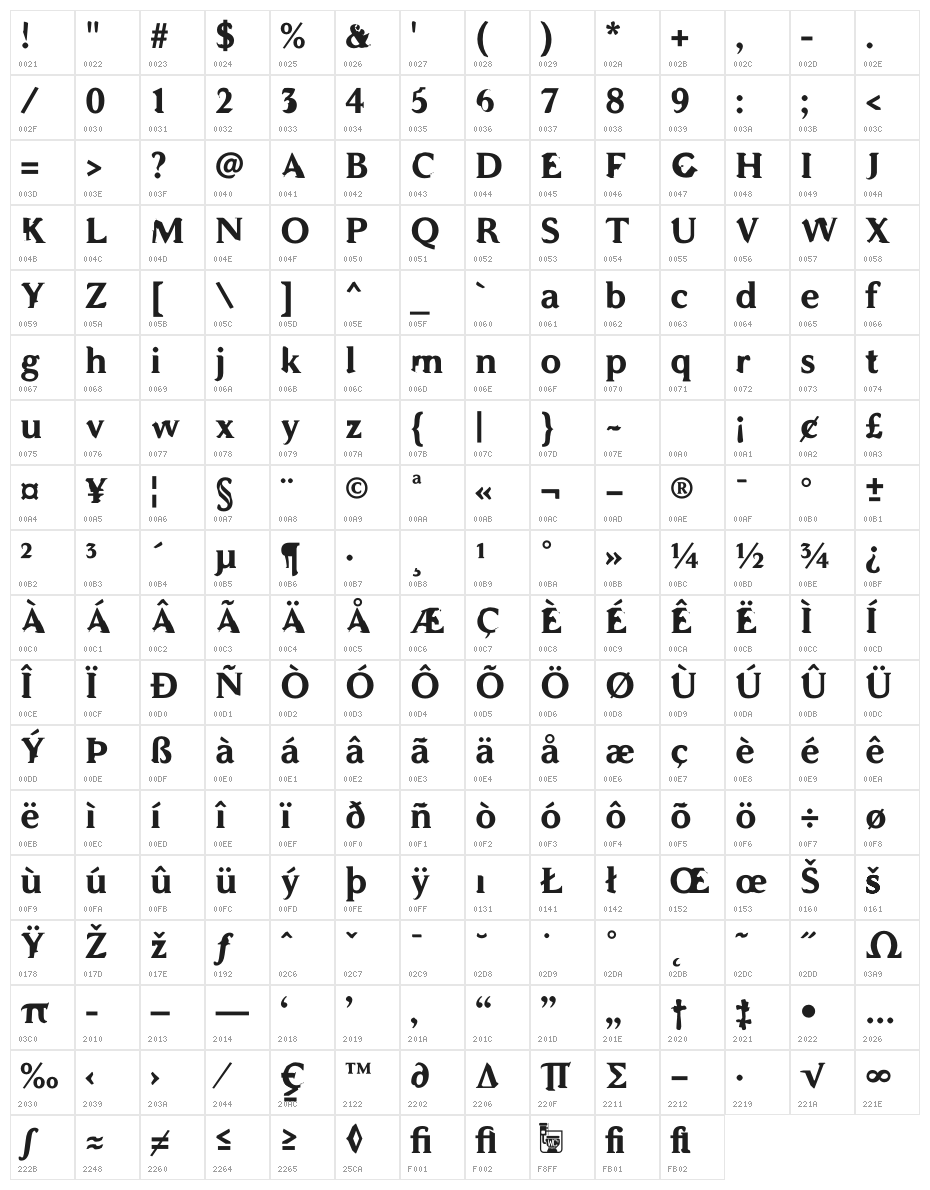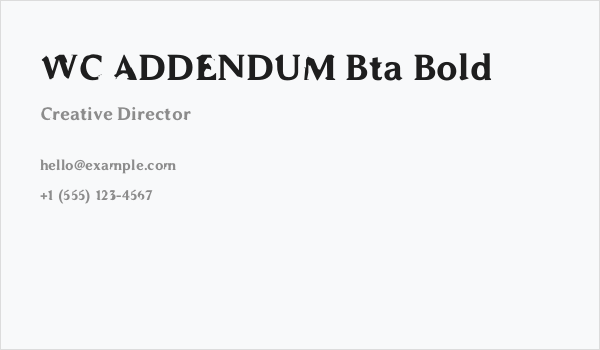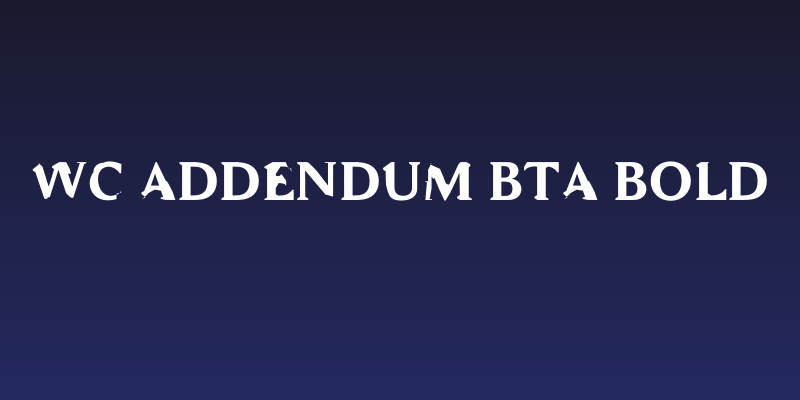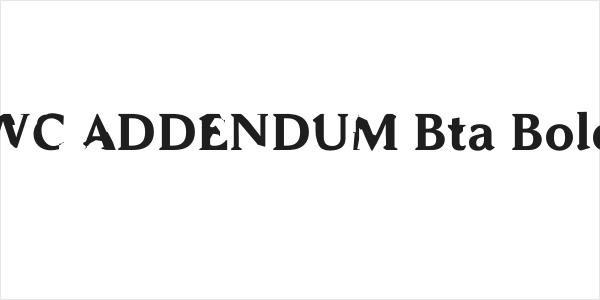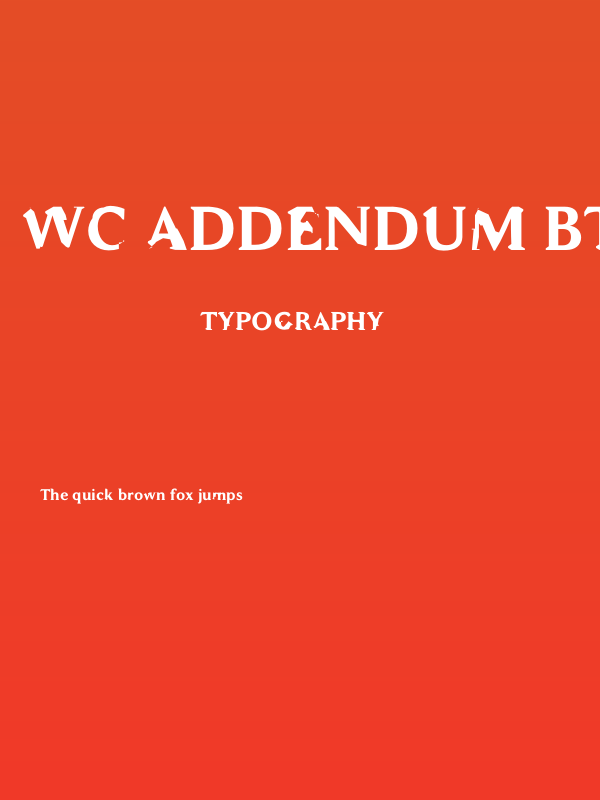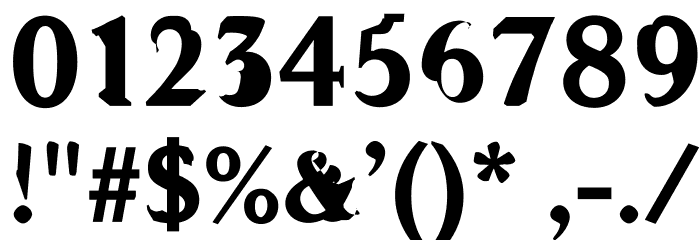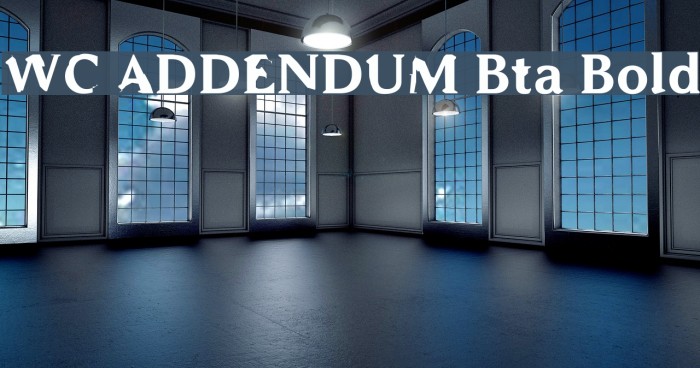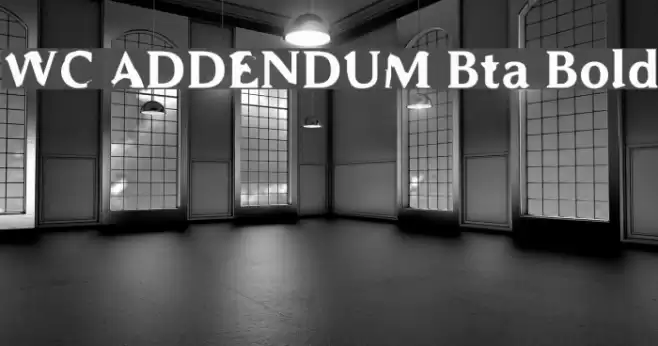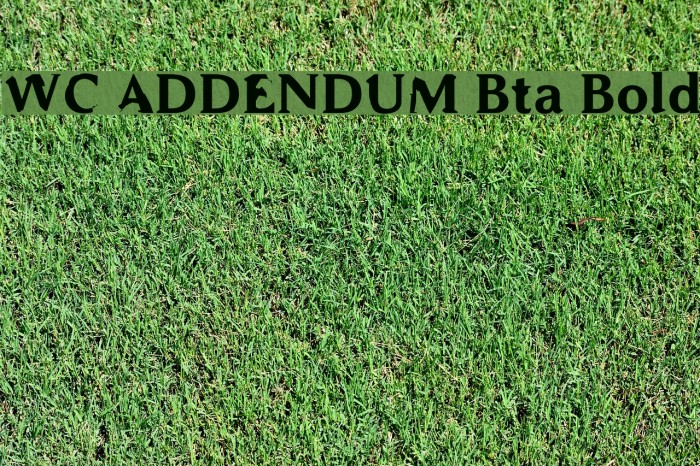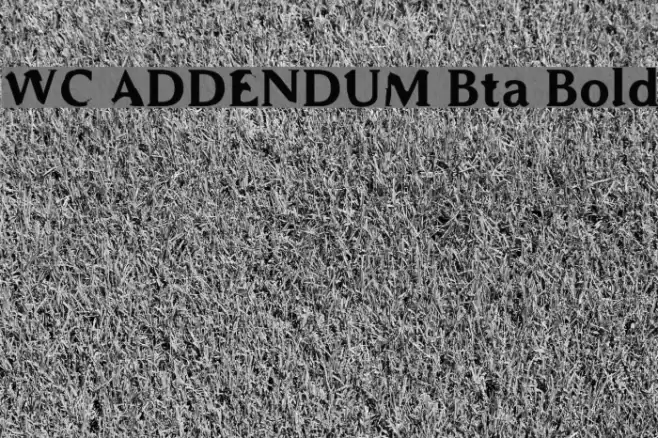
WC ADDENDUM Bta Bold Font
WC ADDENDUM Bta Bold Description
This font features a bold and dynamic style with a strong presence. The uppercase letters are characterized by sharp serifs and distinct cuts, giving them a unique and edgy appearance. The lowercase letters maintain a consistent weight, providing a balanced look. The numerals are bold and easily readable, while the special characters are designed to complement the overall aesthetic. This font's boldness and distinct style make it suitable for impactful designs.
| Proposed Projects | Ideal for branding, headlines, posters, and any design requiring a bold statement. |